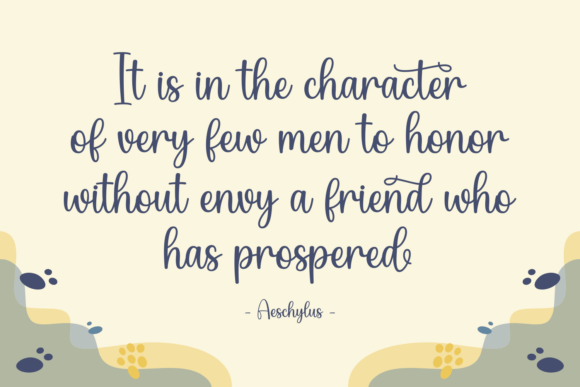
Rustica Font
Rustica is a charming and modern script font with a rustic flair. Its smooth curves and elegant swashes bring a sophisticated yet approachable vibe to any project. Perfect for logos, invitations, branding, packaging, and more, Rustica adds a delightful personal touch to your designs. With its blend of simplicity and refinement, this font is versatile for both formal and casual uses.